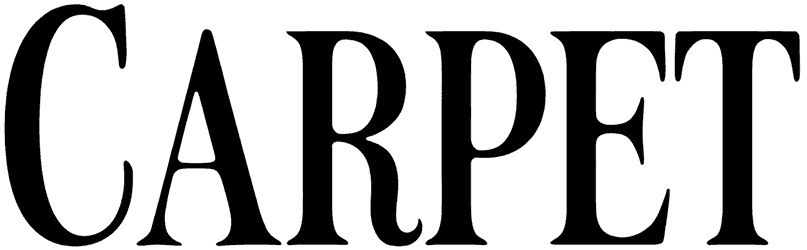
LT Carpet Font
Perhaps LT Carpet will come in handy if you are in charge of a project that requires a serious tone. This simple serif font is great for both print and digital publications thanks to its four distinct styles.
Although the font doesn’t include lowercase letters, it still does a great job as a logotype or banner design and works well for lettering and magazines. This fantastic font is free and will look great on your design.
“Carpet” is a multi-functional old-style serif typeface that makes a good reflection of golden-era cinemas, posters, classical elements, and so much more. The font comes with three additional styles. Shadow, Gradient, and Gradient Shadow. These styles are very effective for an advanced way to apply gradients on the text, let alone the ability to manually apply gradients on text with Photoshop or other alternatives.